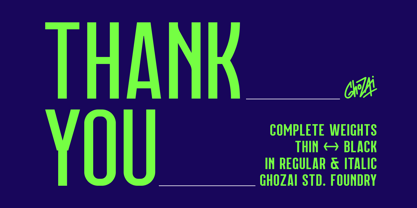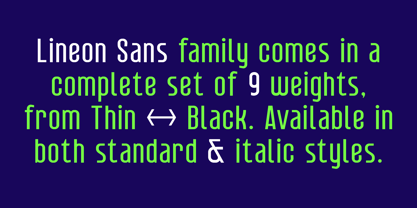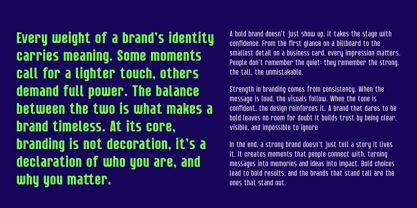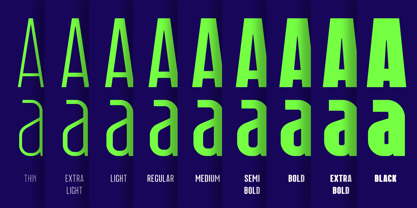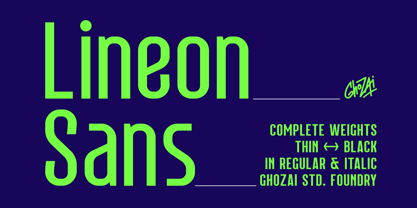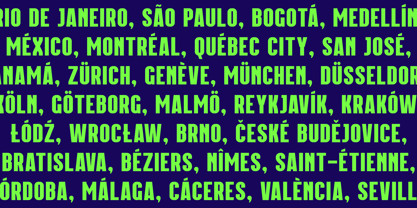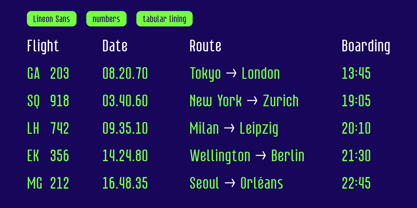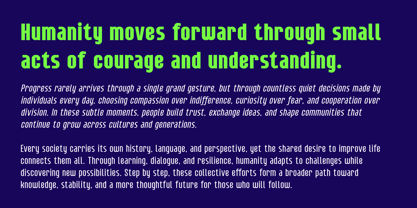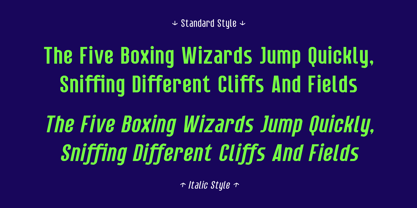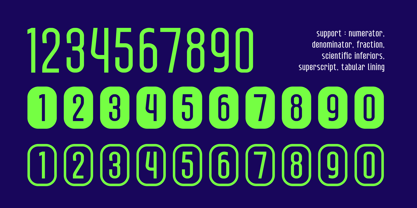
Lineon Sans
The Lineon Sans Font Family was designed by Manzur Ghozaali and published by Ghozai Studio. Lineon Sans contains 18 styles and family package options. More about this family
Lineon Sans is a grotesk-sans font family that offers an impressive selection of 9 distinct weights, ranging from Thin to Black, along with both regular and italic styles, totaling 18 fonts. This extensive range of weights is enhanced by a rich set of symbols, OpenType features, and Tabular Lining numbers, providing exceptional versatility for various languages and design needs. Its modern, clean, and bold aesthetic makes it perfect for a wide array of applications, including display, branding, signage, festival posters, sports, and more. Whether crafting impactful headlines, unique logos, or clear signage, Lineon Sans seamlessly combines style with functionality. Its adaptability to different design styles positions it as an excellent choice for any project requiring a bold and contemporary flair.